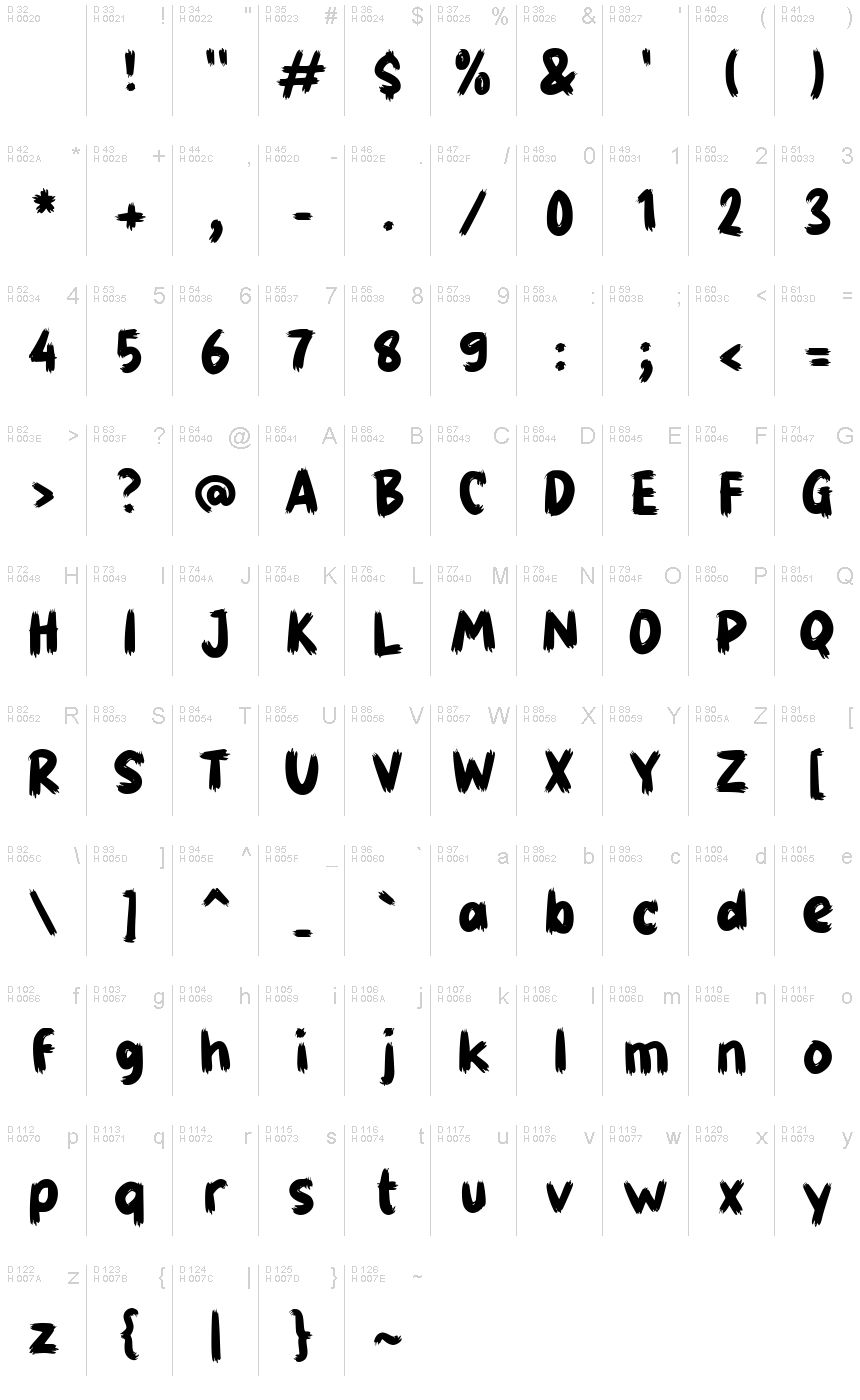
Gemba
Gemba, crafted by wep, is a captivating brush-style font showcasing bold and confident strokes. Its fluid lines and distinctive brushstroke texture infuse a dynamic, handcrafted essence ideal for making statements in design. The bold weight exudes power and personality, ensuring every letter stands out with vivid clarity.
Perfect for eye-catching headlines, vibrant posters, or edgy branding projects, Gemba brings an artisanal touch to modern typography. This font's dramatic flair and unique character are sure to leave a lasting impression across various creative contexts.